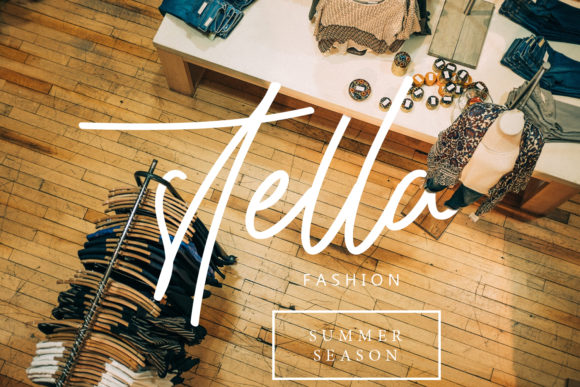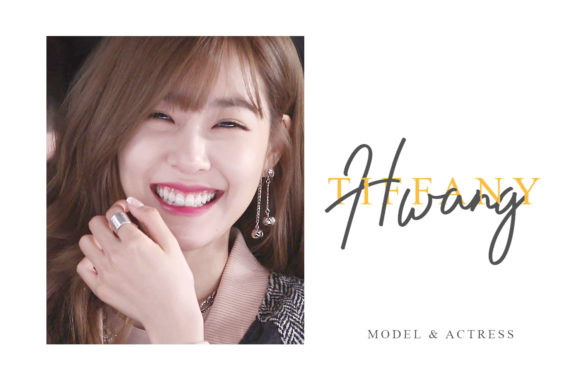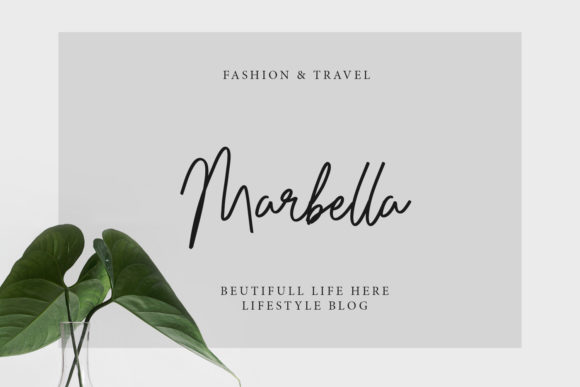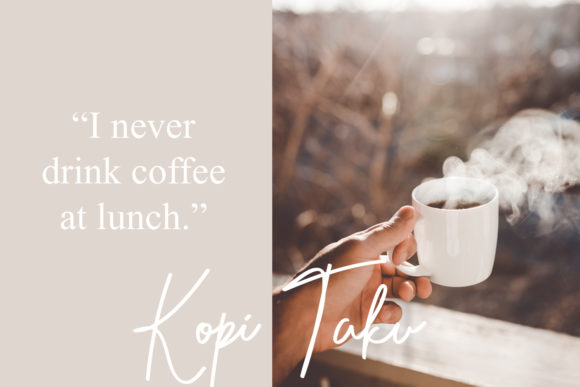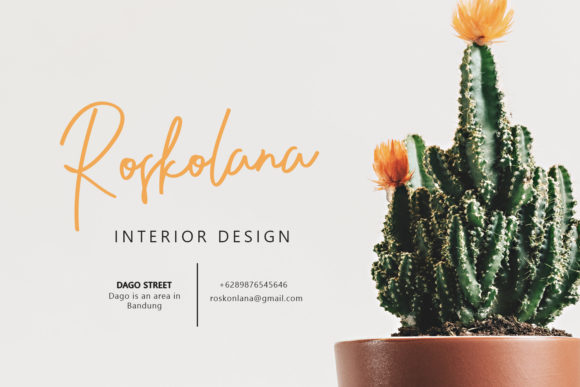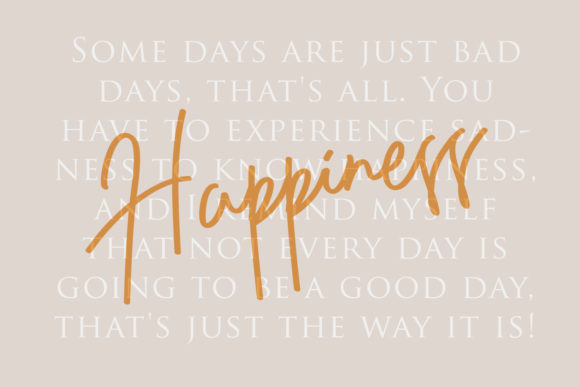
Introduction to Maristella Font
Maristella is a unique and stylish script with an authentic look.
Use it to add a personal touch to any design idea .
Key Features of Maristella Font
Why Choose Maristella Font?
Maristella Font offers exceptional quality and versatility, making it a valuable addition to your design toolkit. Whether you’re creating for personal projects or commercial use, Maristella Font delivers professional results.